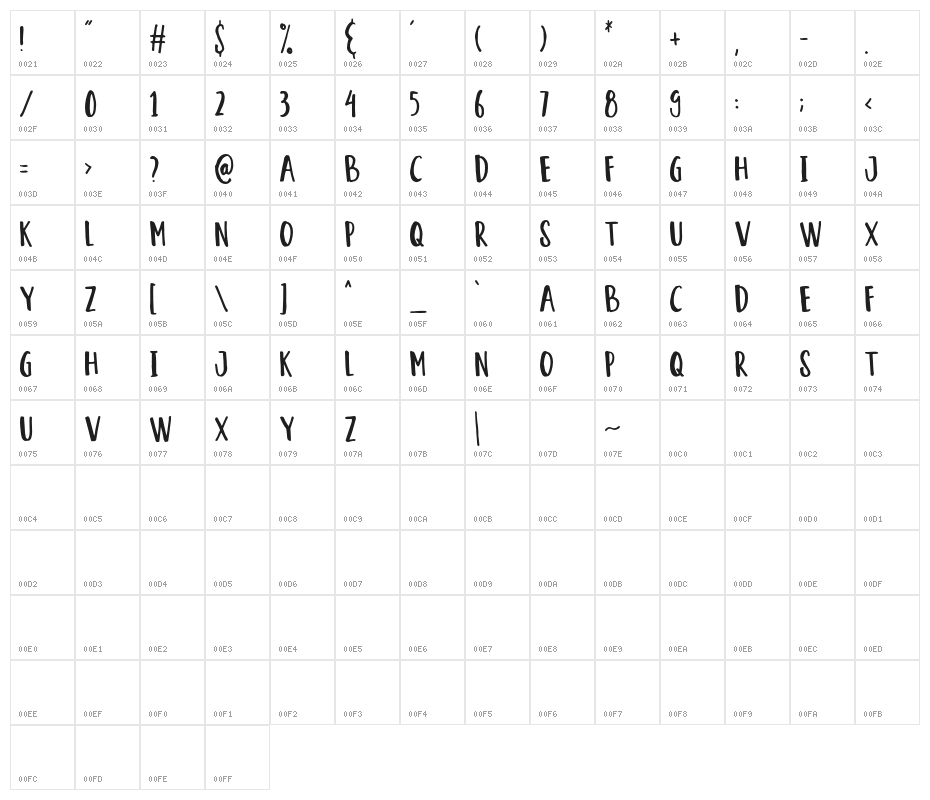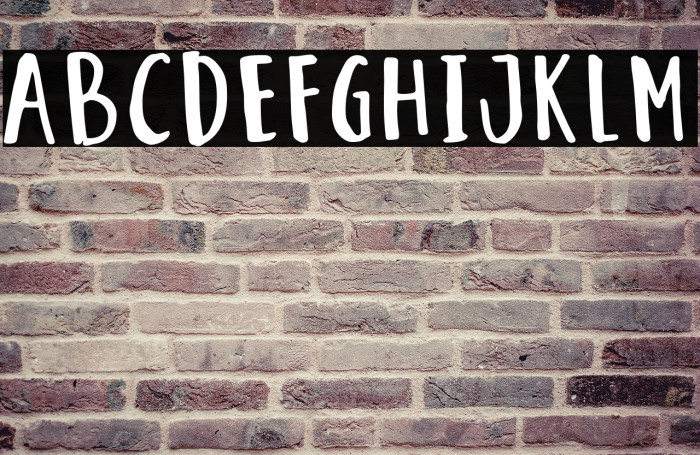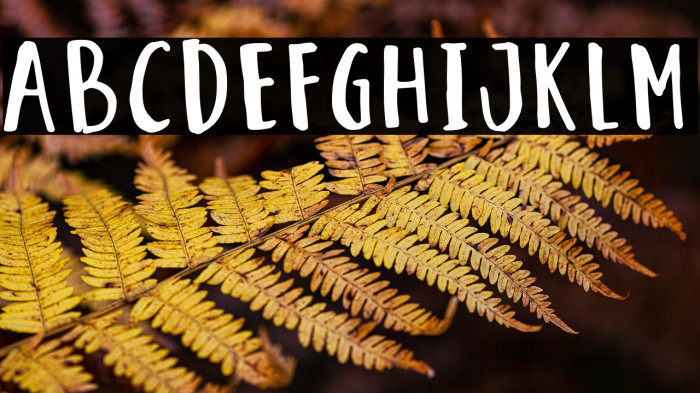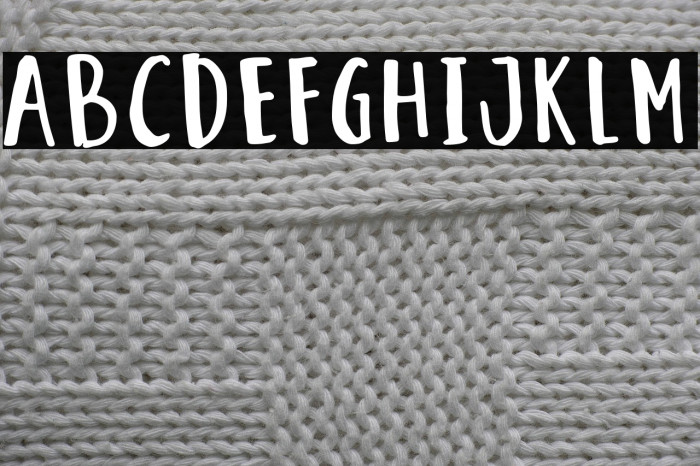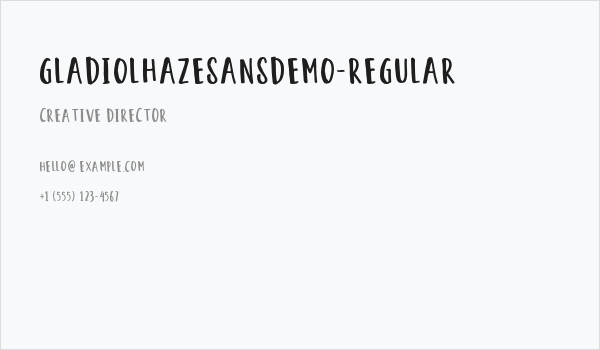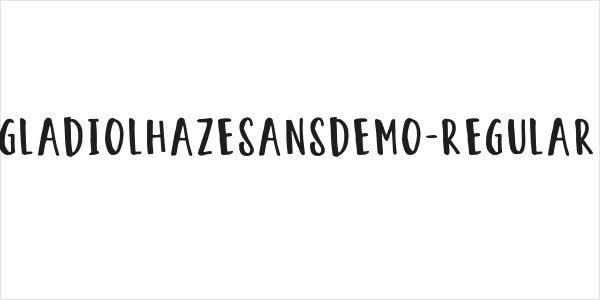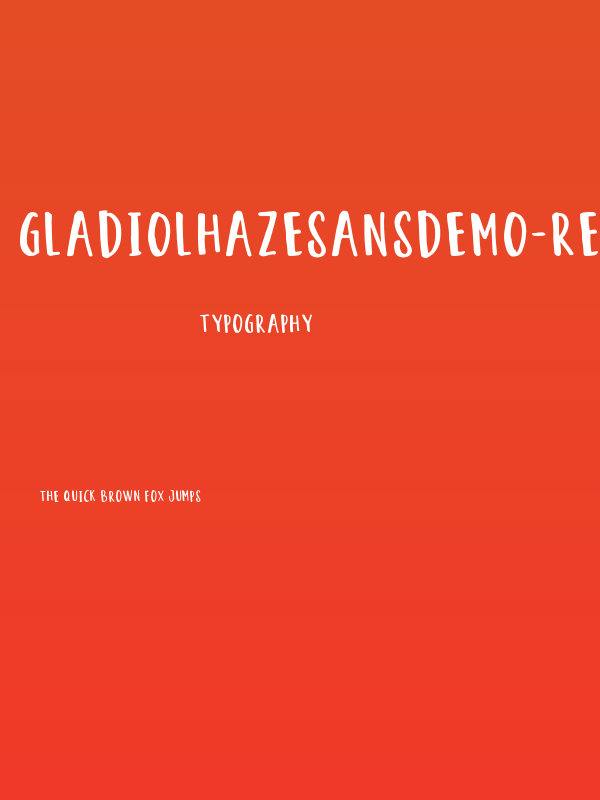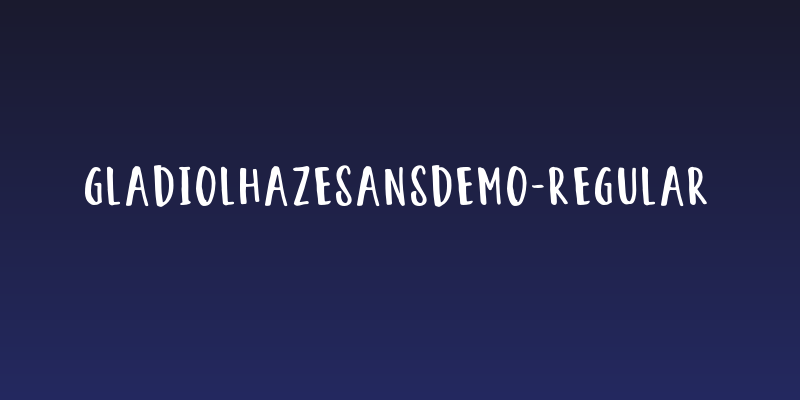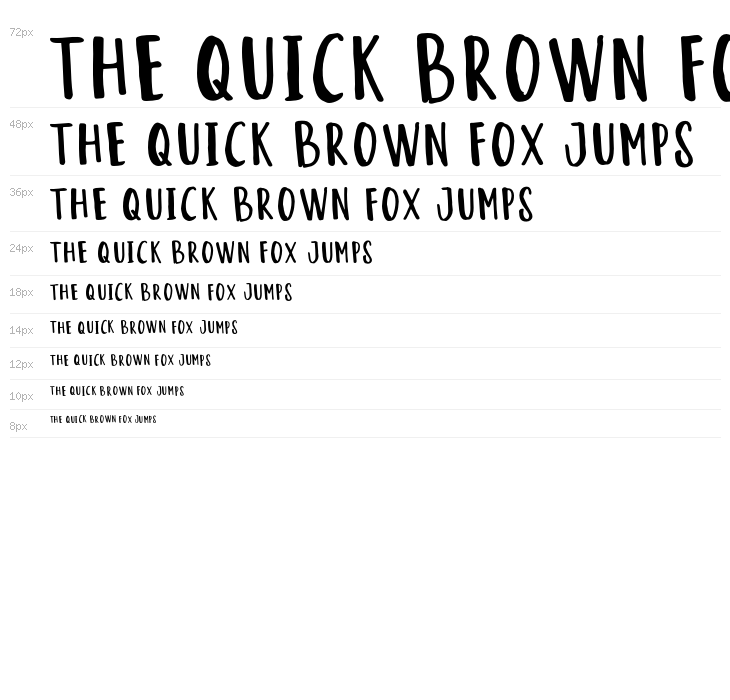
GladiolHazeSansDEMO-Regular Font
GladiolHazeSansDEMO-Regular Description
This font features a playful and energetic style with a handwritten appearance. The letters are bold and slightly irregular, giving a casual and friendly vibe. The uppercase and lowercase characters maintain a consistent flow, while the numbers and special characters complement the overall design. The strokes are thick, providing a strong presence, yet the slight variations in line thickness add a touch of dynamism. This font is well-suited for projects that require a personal and approachable feel.
| Proposed Projects | Ideal for greeting cards, children's books, casual branding, and social media graphics. |